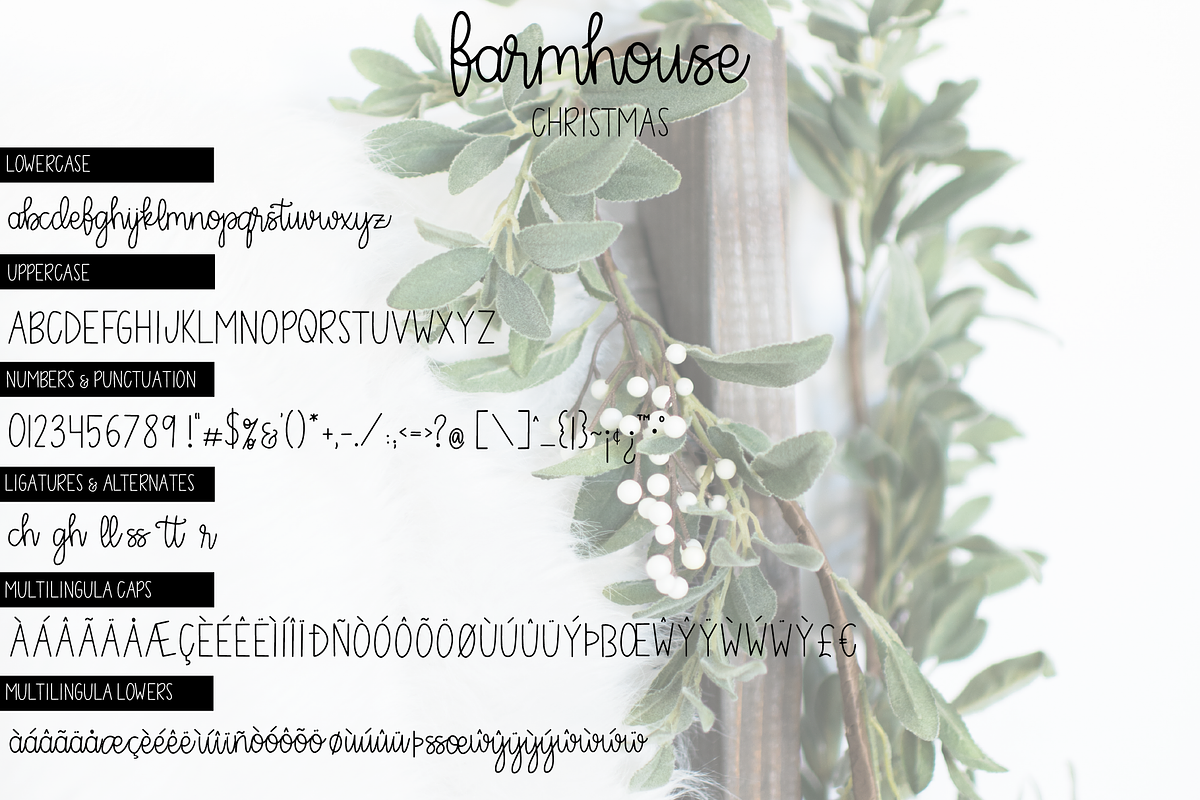
Farmhouse Christmas Script
Give a warm & cozy welcome to my new multilingual monoweight script font duo Farmhouse Christmas. Each one of this fonts characters has been hand drawn by yours truly. I created this font as a sequel to Farmhouse Dreams, my top selling font on Creative Market.
Use the san serif uppercase letters for a completely different look and feel. Or combine the uppers and lowers for a simplistic yet modern visual style.
Farmhouse Christmas Script has some coded features to give it a more handmade feel:
- Western European Multilingual Support
- 5 Standard Ligatures
- 1 alternate
Farmhouse Christmas Script was inspired by my love for monoweight lettering as well as my dream to one day own my very own farmhouse!